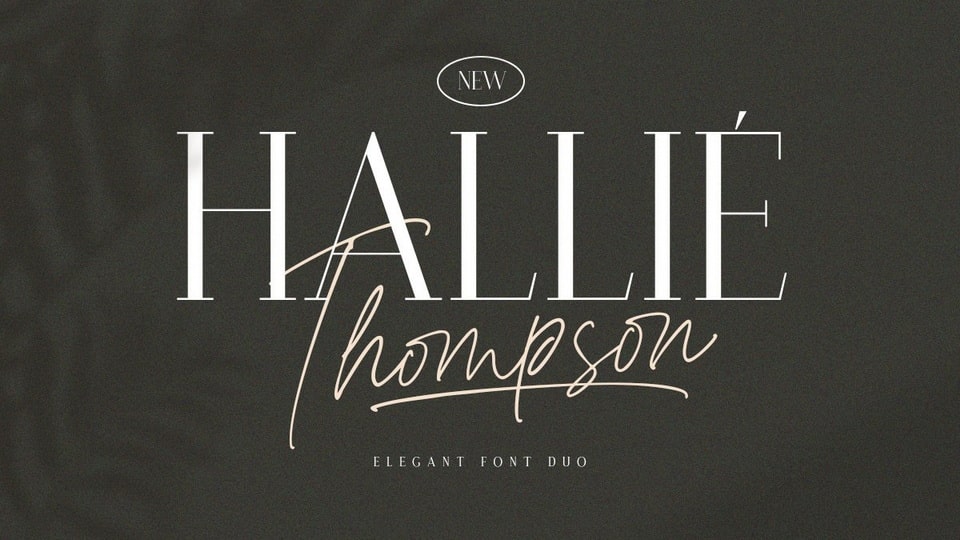
Download Hallie Thompson typeface, a pair of fonts that brings a modern and elegant feel at the same time. Hallie Thompson serif combined with a natural handwriting script with a signature style is the perfect match for any project.